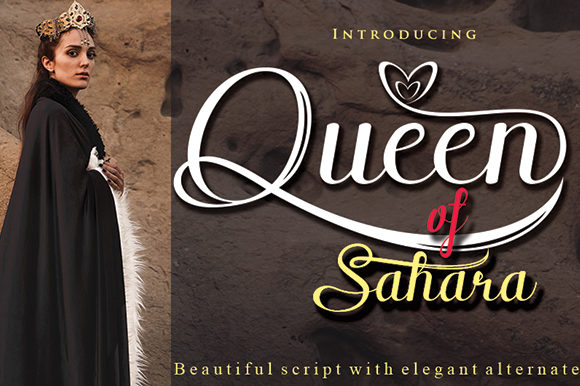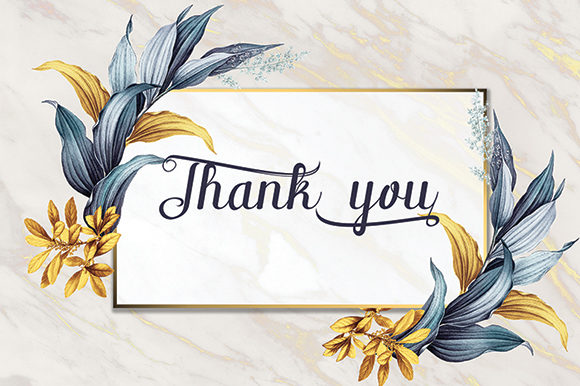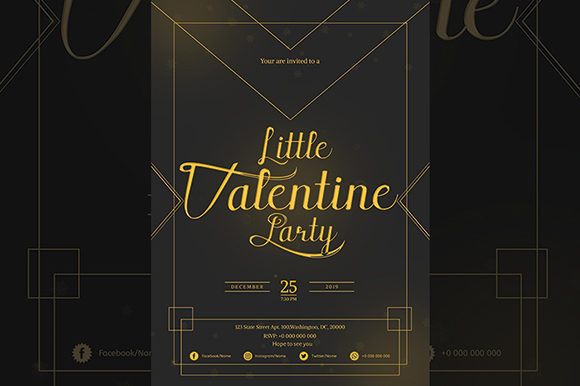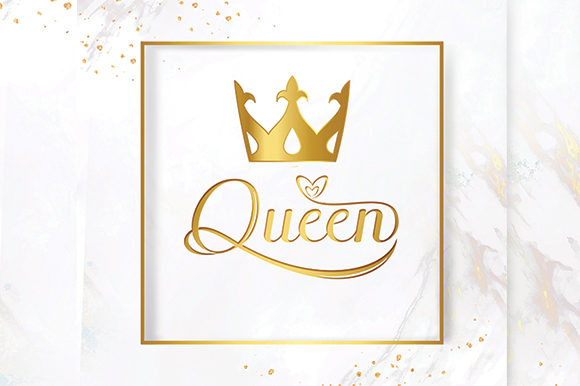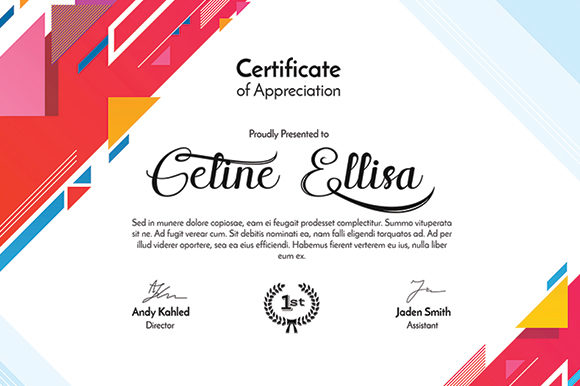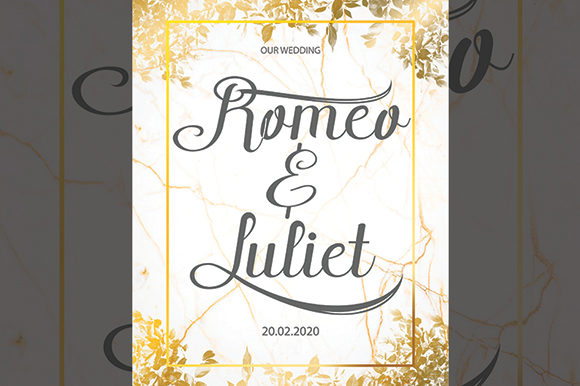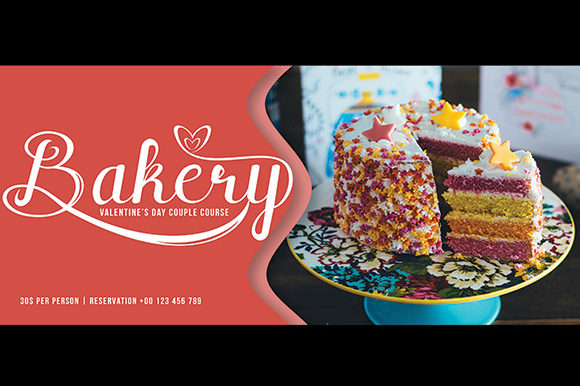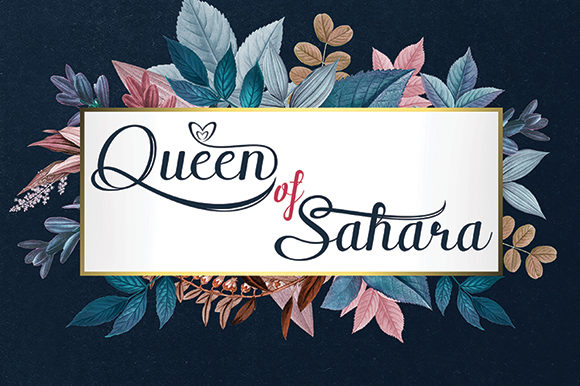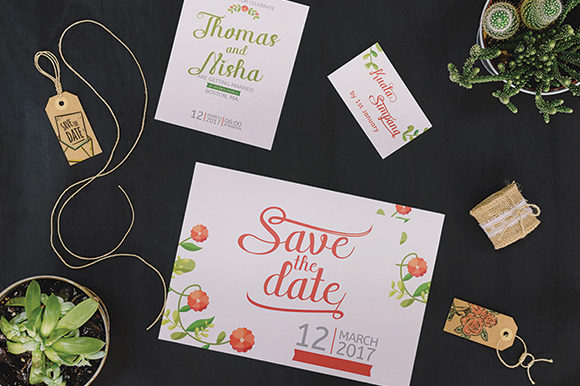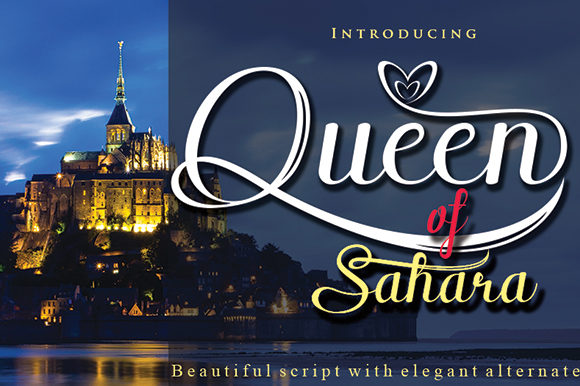
Queen of Sahara Font
About Queen of Sahara Font
Effortlessly combining beauty and elegance, Queen of Sahara is a truly unique script. Get inspired by its amazing feel!